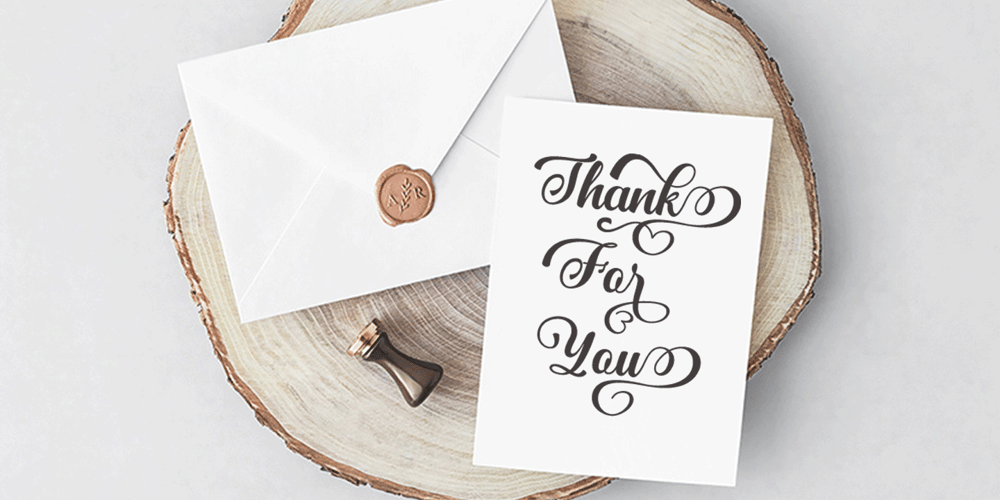
Jamilah
Jamilah font
Jamilah Font Family was designed by Marwah and published by BBA Key. Jamilah contains 2 styles and family package options. I want to introduce my new font Jamilah, a nNew fresh & modern script with handmade calligraphy, decorative characters and dancing lineage! So wonderful for greeting cards, branding material, business cards, quotes, posters, and more!!! Jamilah Script comes with 637 glyphs. Alternate characters are divided into several Open Type features such as Swash, Stylistic Sets, Stylistic Alternate, Contextual Alternate. Open Type features are accessible by using Open Type savvy programs such as Adobe Illustrator, Adobe InDesign, Adobe Photoshop Corel Draw X versions, and Microsoft Word. And this font has code PUA unicode (font with special code). So that all alternative characters can be easily accessed by craftsmen or designers. Uppercase & lowercase, International signature & symbol, Punctuation, Support & PUA number Unicode Style, Style Alternative, Style Style Range 1-28, Contextual Character Variations.